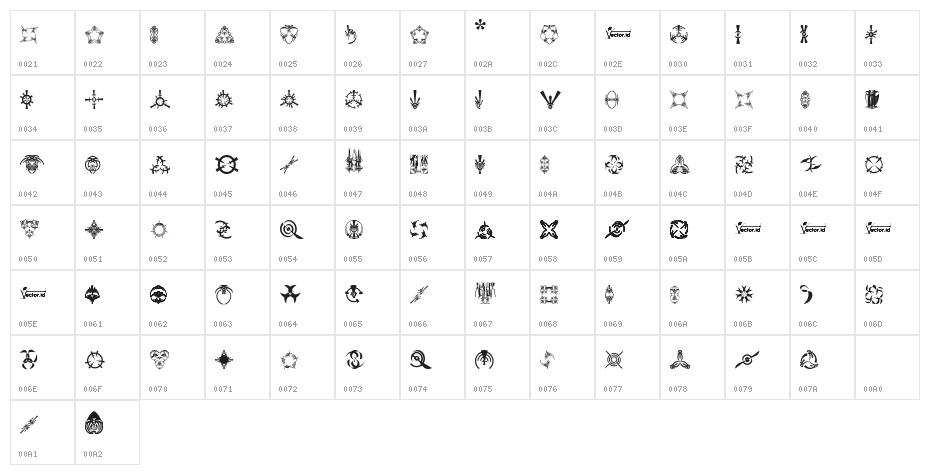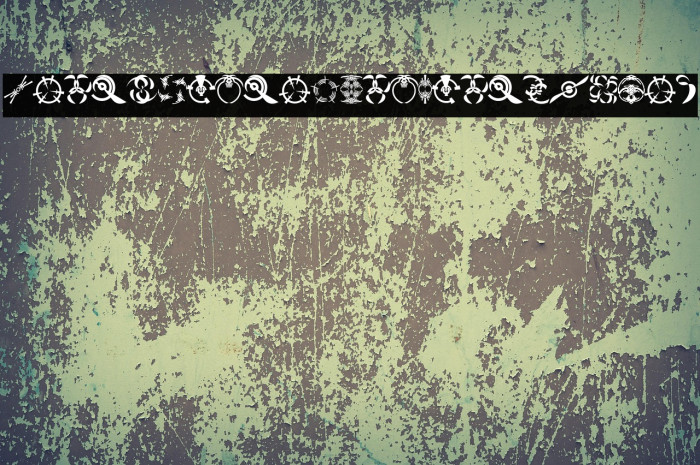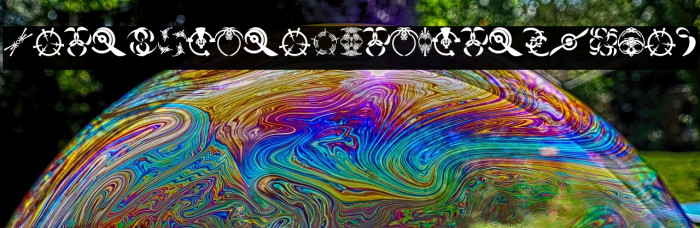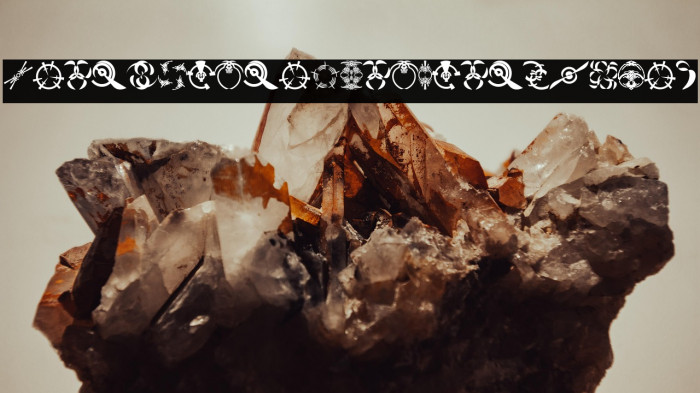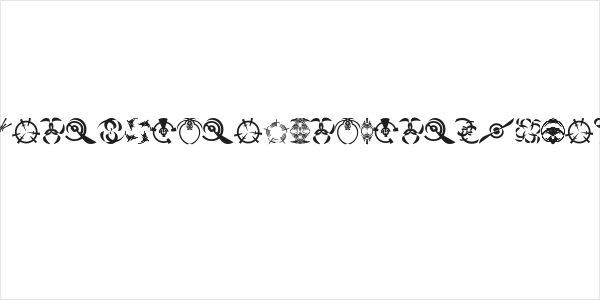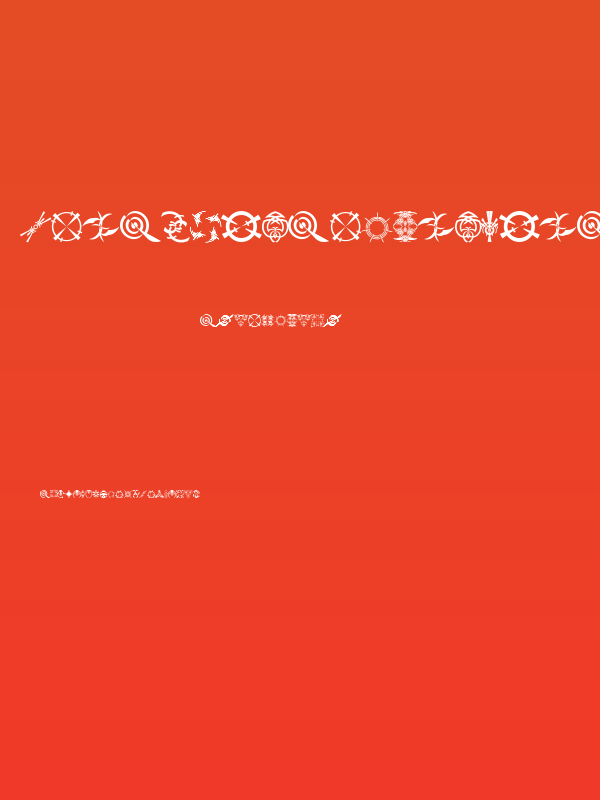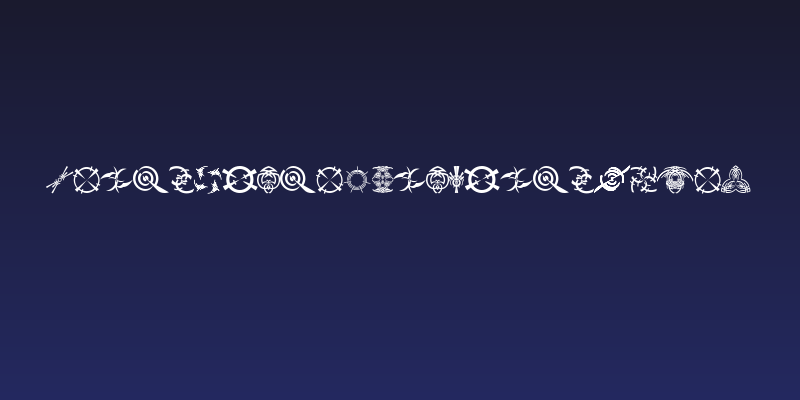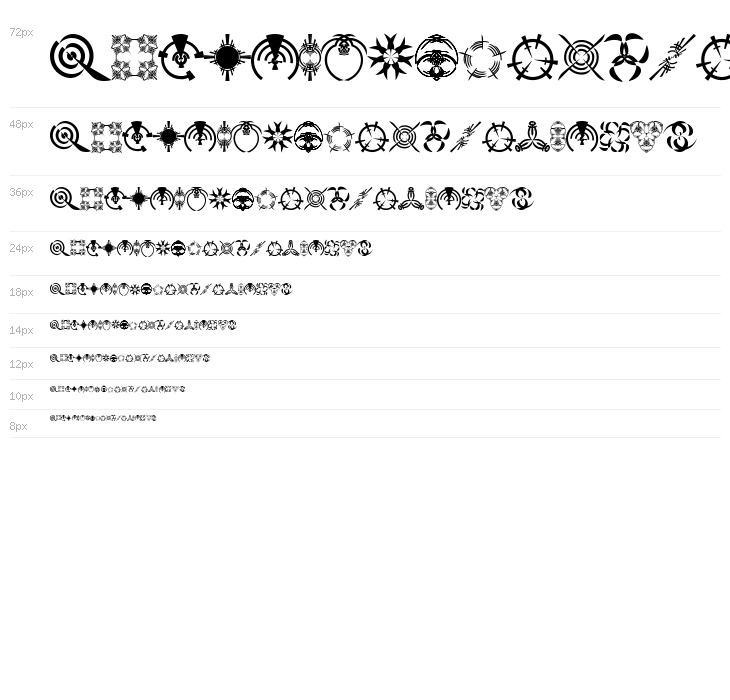
FontsVectorAncientSymbol Font
FontsVectorAncientSymbol Description
A collection of intricate, abstract symbols and vector shapes with an ancient or mystical aesthetic, featuring bold lines, geometric forms, and ornamental details. The glyphs are highly decorative and do not represent standard alphanumeric characters.
| Overall Style | Decorative, Mystical, Ancient |
| Use Case | Logos, Decorative elements, Posters, Branding, Tattoos |
| Proposed Projects | Fantasy game graphics, mystical branding, tattoo designs, decorative dividers, book covers, esoteric posters. |